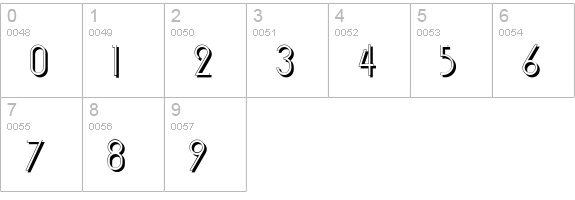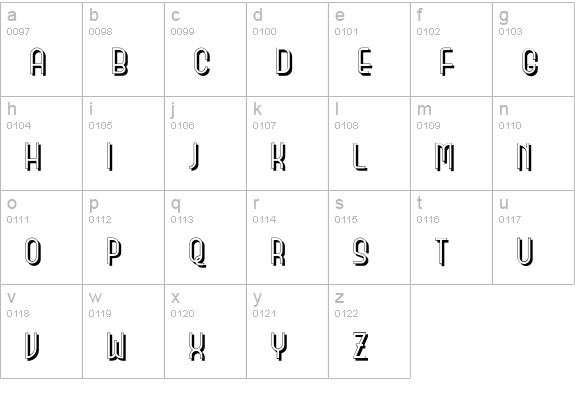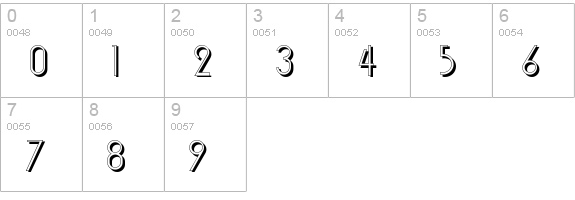
Monicas Salon Shadow NF Font Details
Monicas Salon Shadow NF font is a stunning display typeface that exudes elegance and sophistication. With its intricate shadow effect, this font adds a touch of glamour to any design project. The flowing curves and intricate details make Monicas Salon Shadow NF font a perfect choice for luxury branding, wedding invitations, and editorial designs. What makes Monicas Salon Shadow NF font even more appealing is that it is available for free download at FontsMarket.com. This means that you can easily add this beautiful font to your collection without any cost. Don't miss out on the opportunity to elevate your designs with the exquisite Monicas Salon Shadow NF font. Download it now and let your creativity shine!